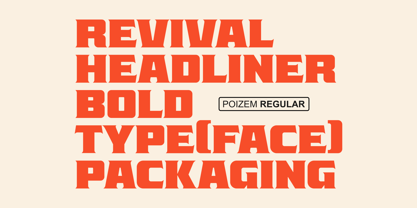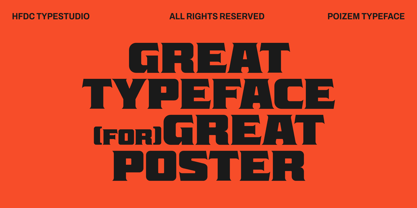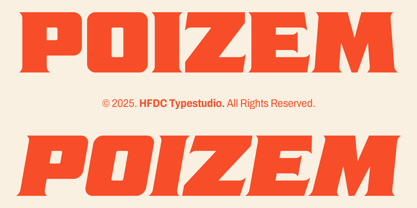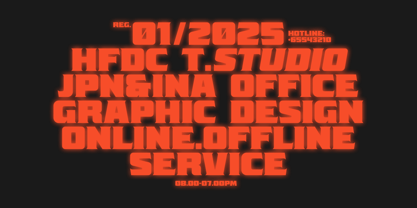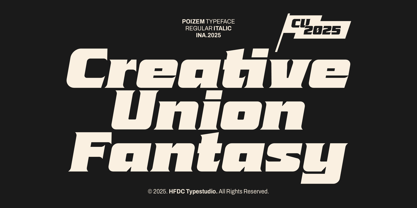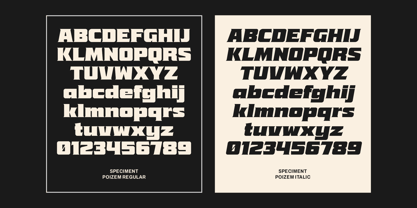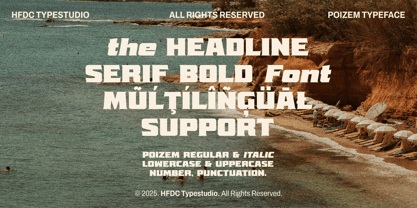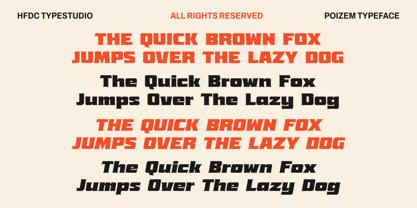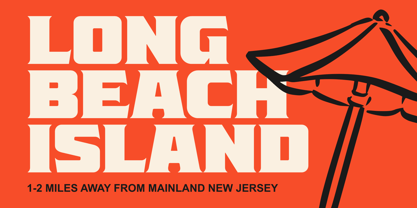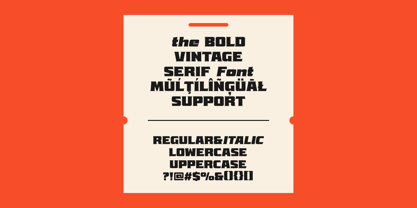
Poizem
by Holis.Mjd
The Poizem Font Family was designed by Holis Majid and published by Holis.Mjd. Poizem contains 2 styles and family package options. More about this family
Poizem is available in Regular and italic styles. The Poizem font is included in the category of bolder serif fonts suitable for headlines in your design. With thick and wide characters, it will make your design stand out more. Poizem is perfect for poster designs, covers, product packaging, content thumbnail titles, branding, promotions, logotypes, and other designs.